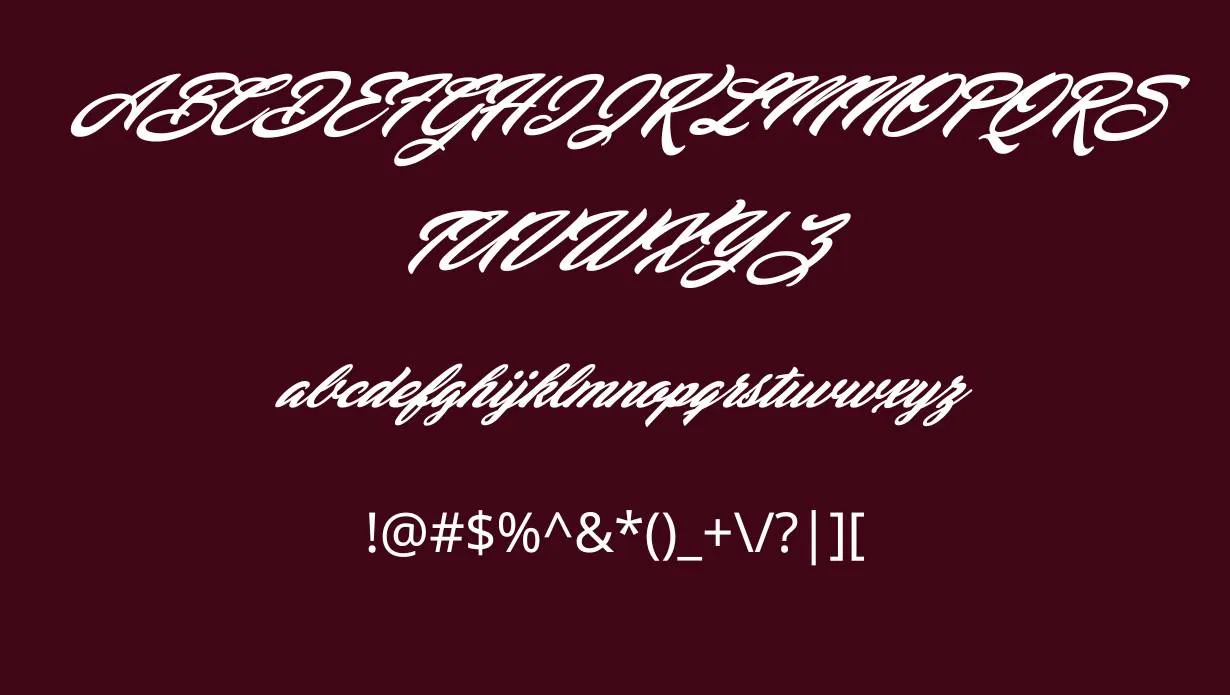
New Balance Font has a classic and timeless design, often chosen for formal documents, editorial design, and branding.
Its well-proportioned letterforms and traditional style convey a sense of tradition and sophistication, making it an ideal choice for projects requiring a touch of refinement.
| Name | New Balance Font |
| Designer | Herb Lubalin |